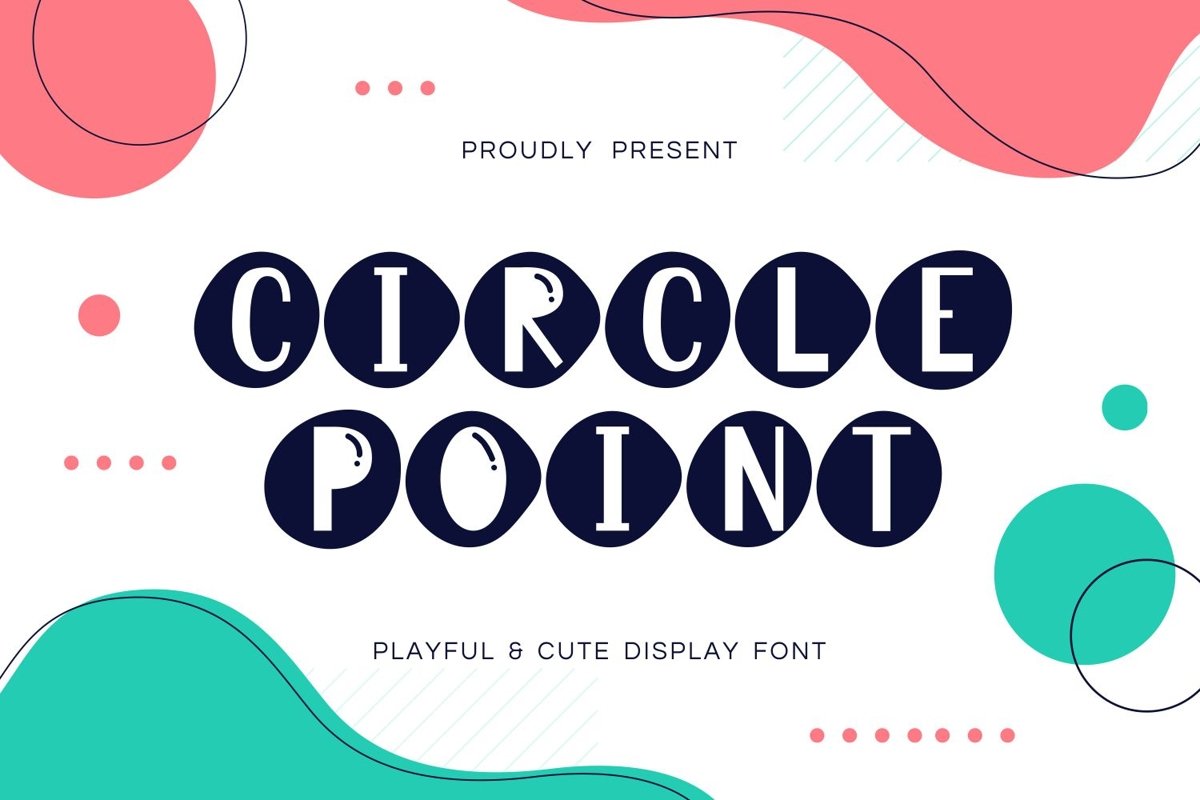
Circle Point is sans serif display in circle come with playful themes. We wanted to create the most unique. It matches applies in some designs such as the logotype, brand, packaging, quotes, poster, kids shirt, cover book, birthday invitation and more custom design. The features uppercase, lowercase, numeral, punctuation & symbol, multilingual support.